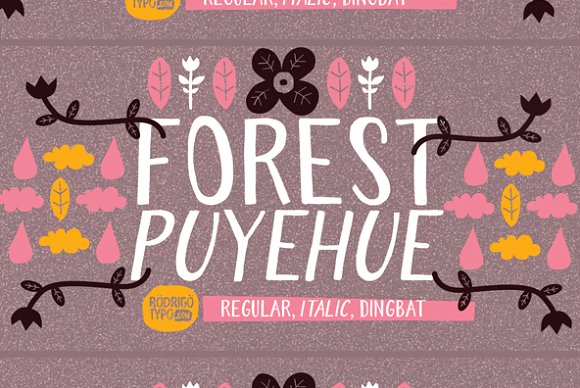
Journey through the enchanting forests of Southern Chile with Forest Puyehue, a remarkable sans serif typeface crafted by the skilled hands of Rodrigo Typo. Inspired by the untamed beauty of the Puyehue forests, this font is a symphony of organic lines and subtle imperfections that exudes a sense of authenticity and artistry.
Forest Puyehue is not just a font; it's a gateway to a world of boundless creativity. With its loose, handmade style, it captures the essence of nature's untamed spirit, inviting you to infuse your designs with a touch of organic charm. Whether you're a seasoned designer or just starting your creative journey, Forest Puyehue is the perfect companion for projects that demand a unique and captivating visual identity.
Unleash your imagination and explore the endless possibilities of Forest Puyehue's versatile character set. From elegant invitations to eye-catching logos, from captivating social media posts to stunning website designs, this font effortlessly adapts to your creative vision. Let Forest Puyehue's graceful curves and playful ornaments elevate your designs to new heights, transforming them into masterpieces that resonate with your audience.
Immerse yourself in the whimsical world of Forest Puyehue, where creativity flourishes and individuality shines. Embrace the beauty of imperfection and let your designs reflect the raw, organic energy of nature. With Forest Puyehue as your creative ally, you'll craft designs that captivate, inspire, and leave a lasting impression.